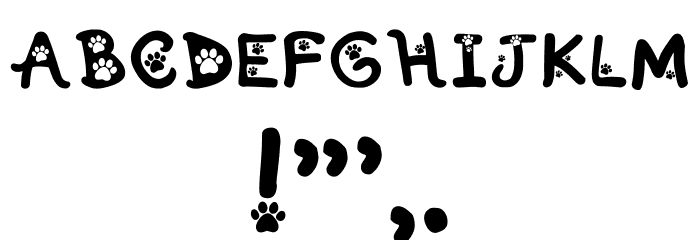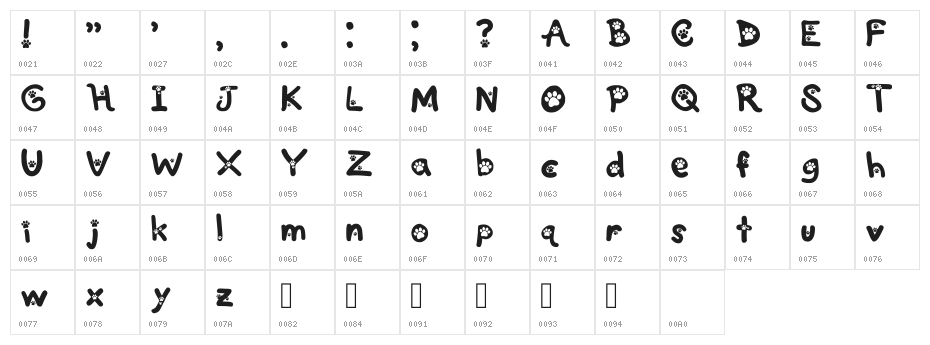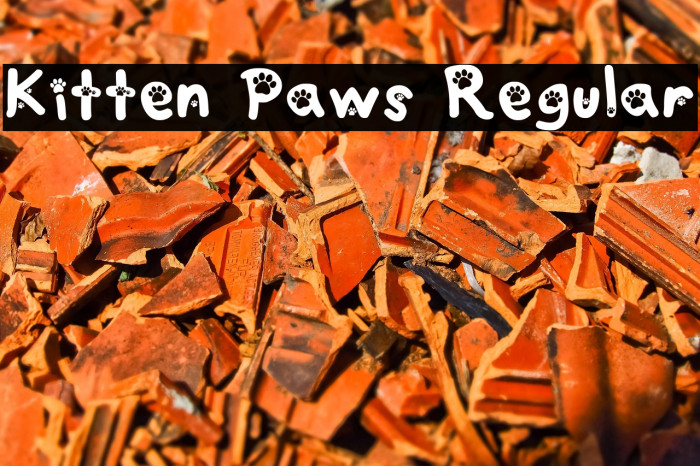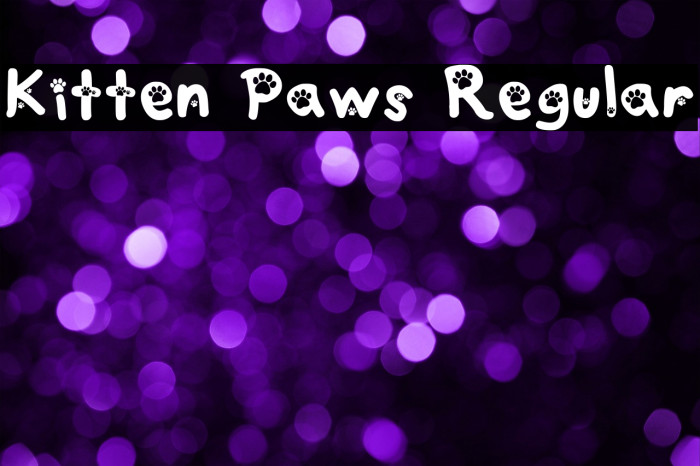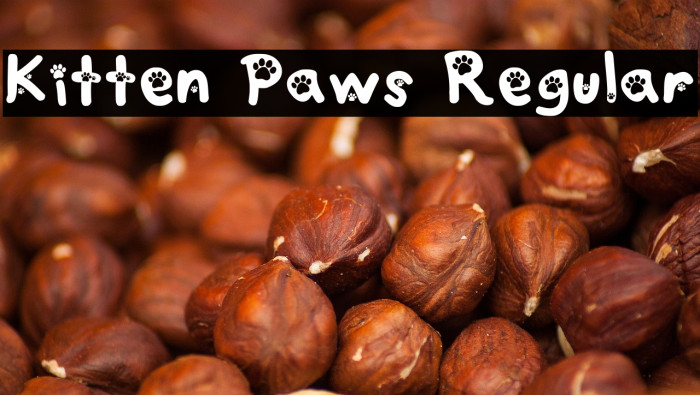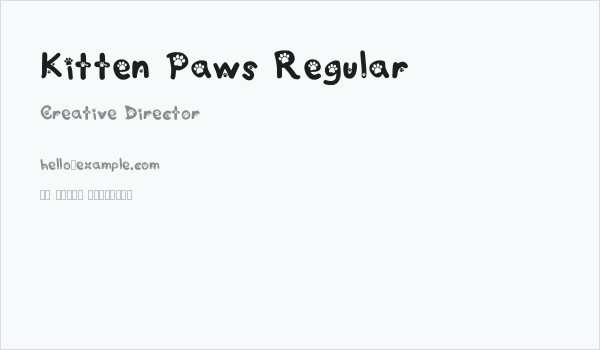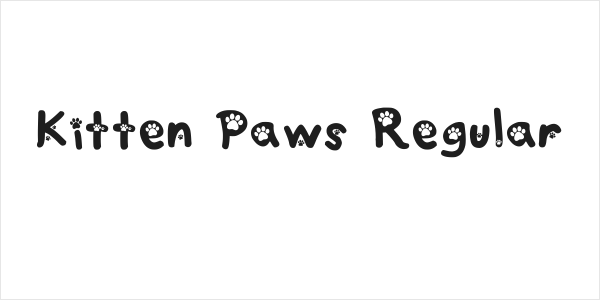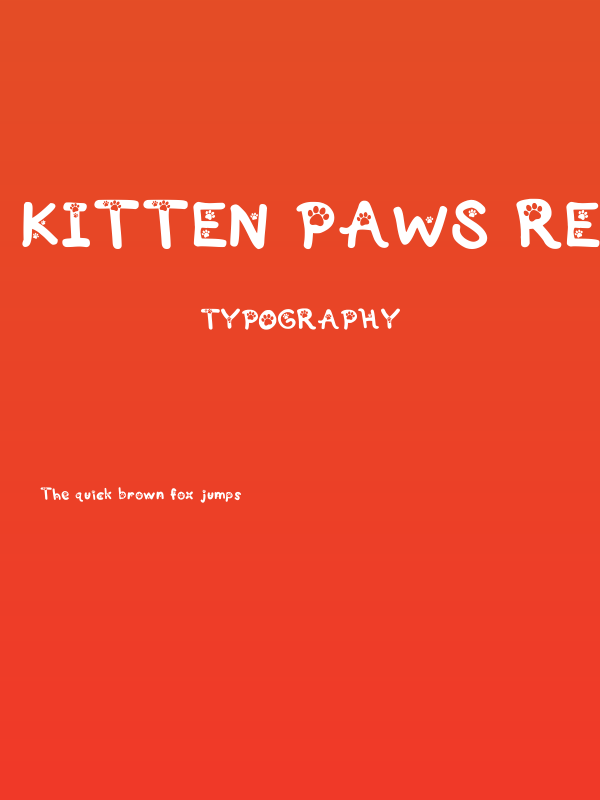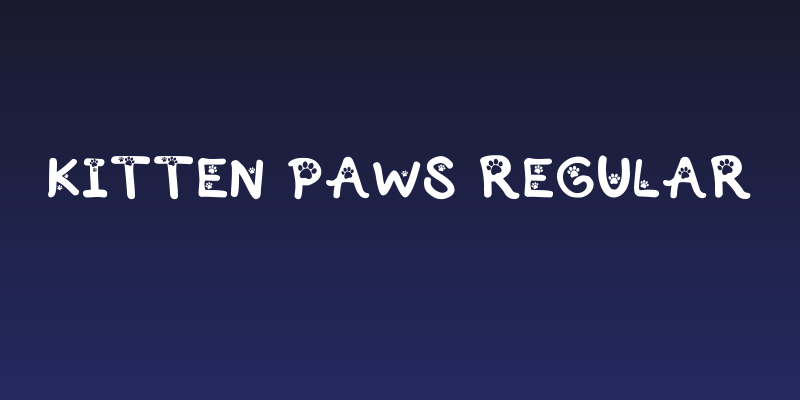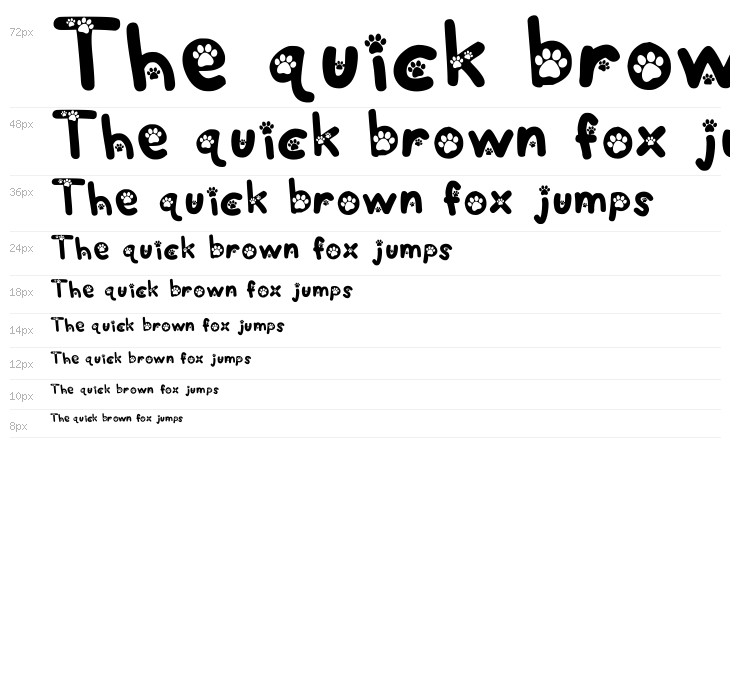
Kitten Paws Regular Font
Kitten Paws Regular Description
This playful and whimsical font features a unique design where each letter is adorned with small paw prints, adding a charming and fun element to the text. The characters are bold and rounded, giving them a friendly and approachable appearance. The font maintains a consistent thickness throughout, ensuring readability while still offering a decorative touch. The inclusion of paw prints makes it particularly appealing for projects related to pets, children, or anything that requires a lighthearted and joyful aesthetic. Its distinct style makes it stand out, making it ideal for creative and informal applications.
| Proposed Projects | Ideal for children's books, pet store branding, playful posters, and animal-themed events. |